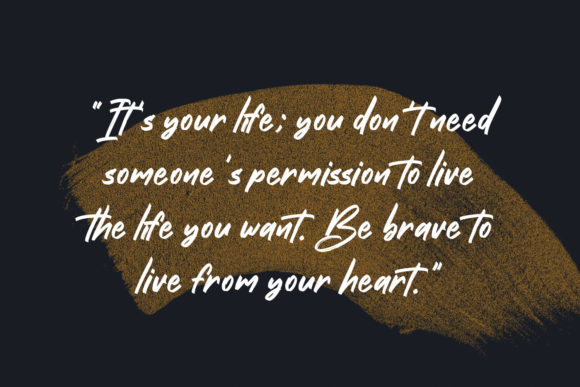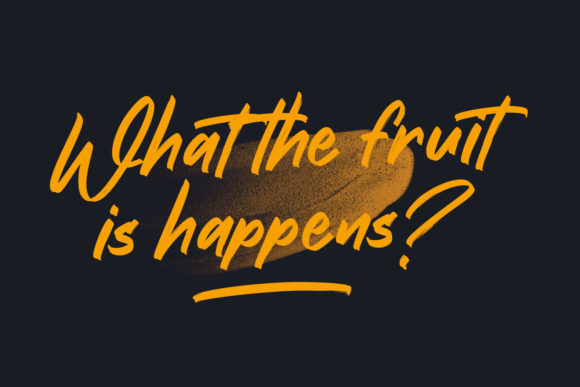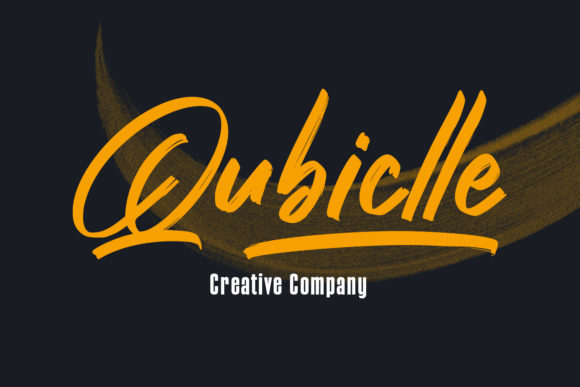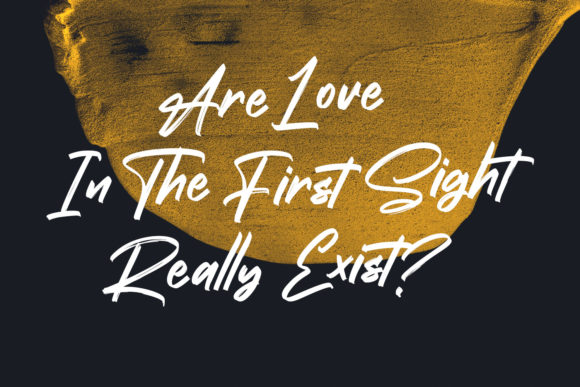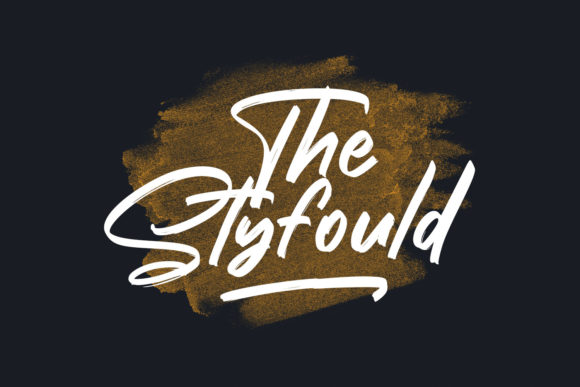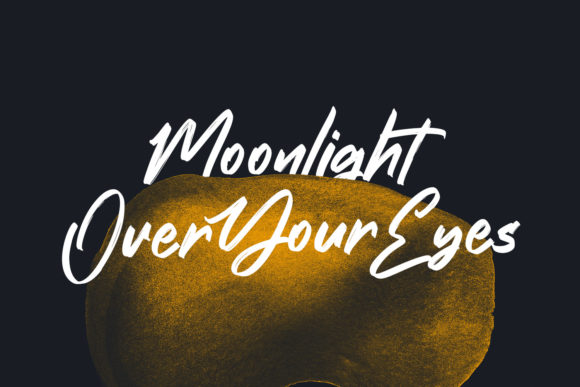
Fattalsfort Font: A Beautiful, Paint-Brushed Handwritten Font
Are you looking for a font that can add a touch of elegance and sophistication to your designs? Look no further than Fattalsfort, a stunning paint-brushed handwritten font that’s perfect for creating gorgeous wedding invitations, beautiful stationery art, eye-catching social media posts, and much more!
The Charm of Fattalsfort
Fattalsfort is a beautiful, paint-brushed handwritten font that’s sure to capture your heart. Its ravishing style is perfect for designers and crafters who want to add a personal touch to their work. With its unique blend of elegance and playfulness, Fattalsfort is ideal for a wide range of design projects, from wedding invitations and stationery to social media posts and branding materials.
What Makes Fattalsfort So Special?
So, what sets Fattalsfort apart from other fonts? Here are just a few reasons why this font is a must-have for designers and crafters:
- Unique and eye-catching design: Fattalsfort’s paint-brushed handwritten style is unlike anything you’ve ever seen before. Its distinctive look is sure to grab attention and make your designs stand out.
- Perfect for wedding and event designs: Fattalsfort’s elegant and sophisticated style makes it perfect for wedding invitations, save-the-date cards, and other event-related designs.
- Versatile and flexible: Whether you’re designing social media posts, branding materials, or stationery, Fattalsfort is a versatile font that can be used in a wide range of design projects.
How to Use Fattalsfort in Your Designs
Now that you know a little bit about Fattalsfort, let’s talk about how to use it in your designs. Here are a few ideas to get you started:
- Wedding invitations: Use Fattalsfort to create beautiful, one-of-a-kind wedding invitations that will set the tone for the big day.
- Stationery and paper crafts: Add a touch of elegance to your stationery and paper crafts with Fattalsfort’s beautiful, paint-brushed handwritten style.
- Social media posts: Use Fattalsfort to create eye-catching social media posts that will grab attention and drive engagement.
- Branding and packaging: Fattalsfort’s unique and stylish design makes it perfect for branding and packaging materials, from business cards to product labels.
Tips and Tricks for Working with Fattalsfort
Here are a few tips and tricks to help you get the most out of Fattalsfort:
- Experiment with different colors: Fattalsfort looks great in a wide range of colors, from bold and bright to soft and pastel.
- Play with font sizes: Fattalsfort’s paint-brushed handwritten style looks great in a variety of font sizes, from large and bold to small and delicate.
- Combine with other fonts: Fattalsfort pairs well with a wide range of other fonts, so don’t be afraid to experiment with different font combinations.
Fattalsfort is a beautiful, paint-brushed handwritten font that’s perfect for designers and crafters who want to add a touch of elegance and sophistication to their work. With its unique and eye-catching design, Fattalsfort is ideal for a wide range of design projects, from wedding invitations and stationery to social media posts and branding materials. So why wait? Download Fattalsfort today and start creating gorgeous designs that will leave a lasting impression!